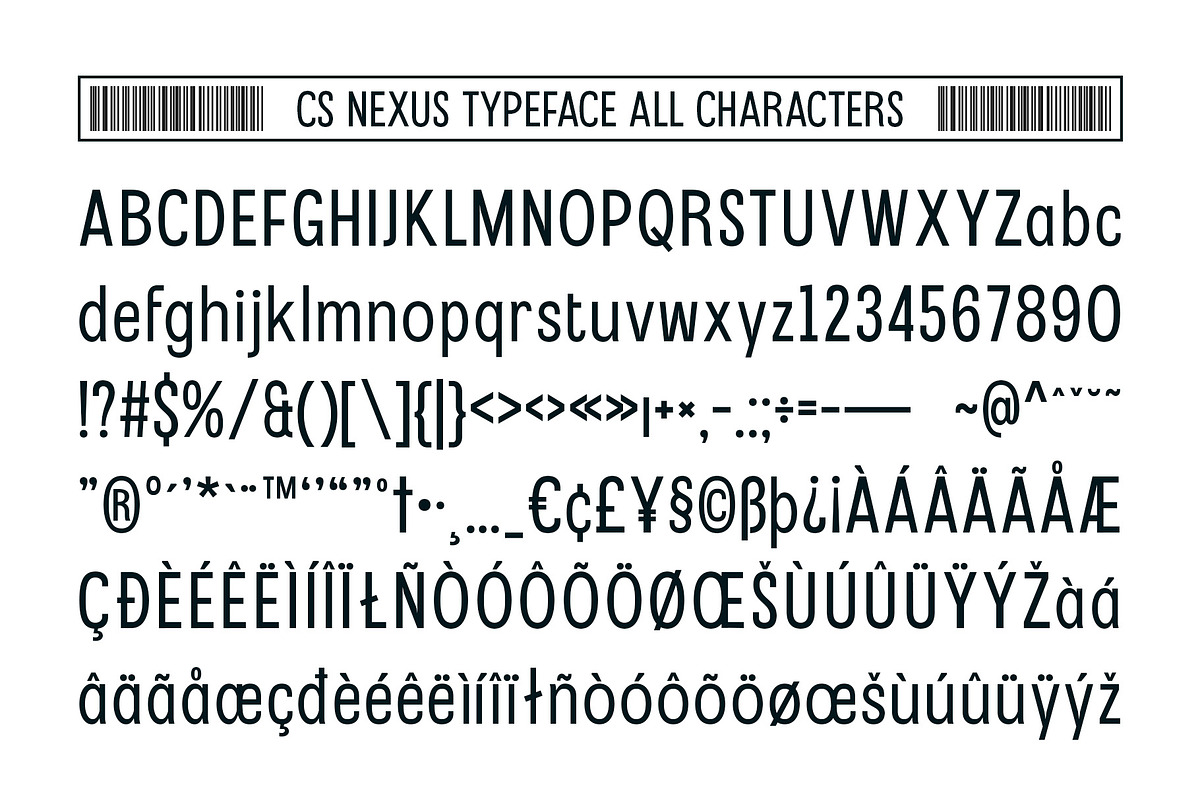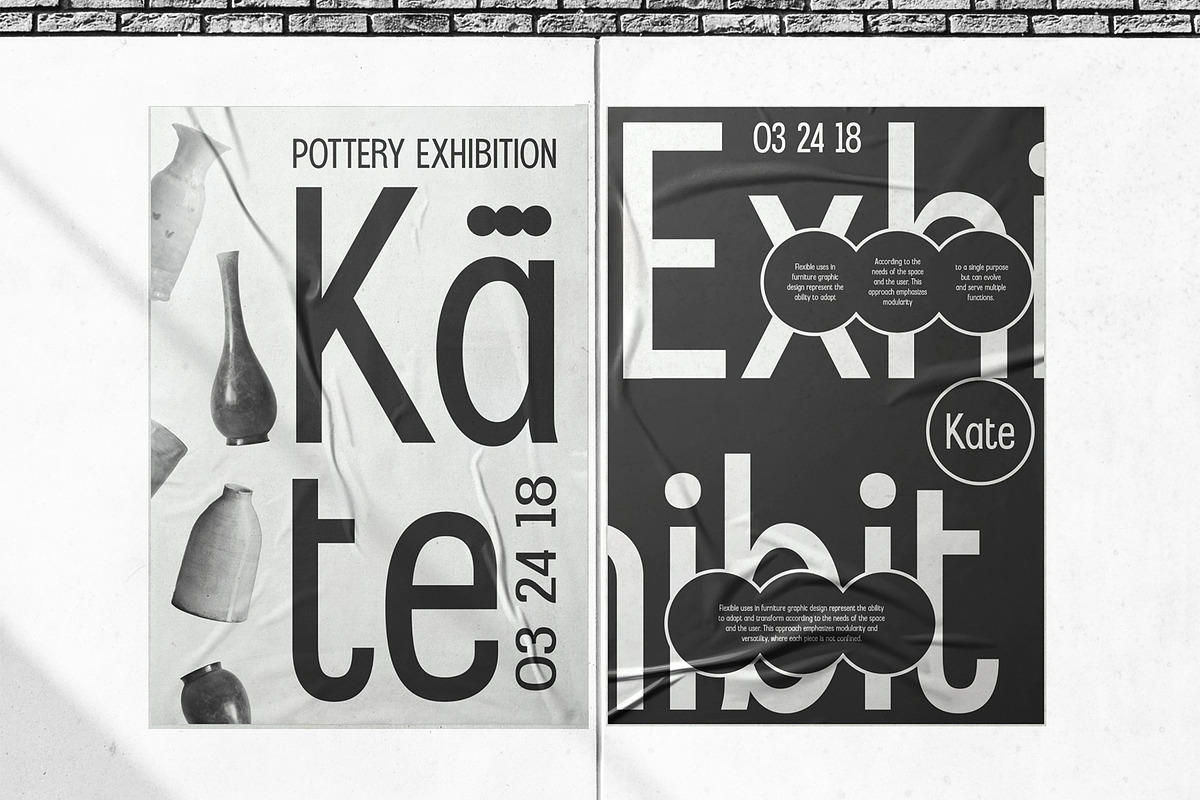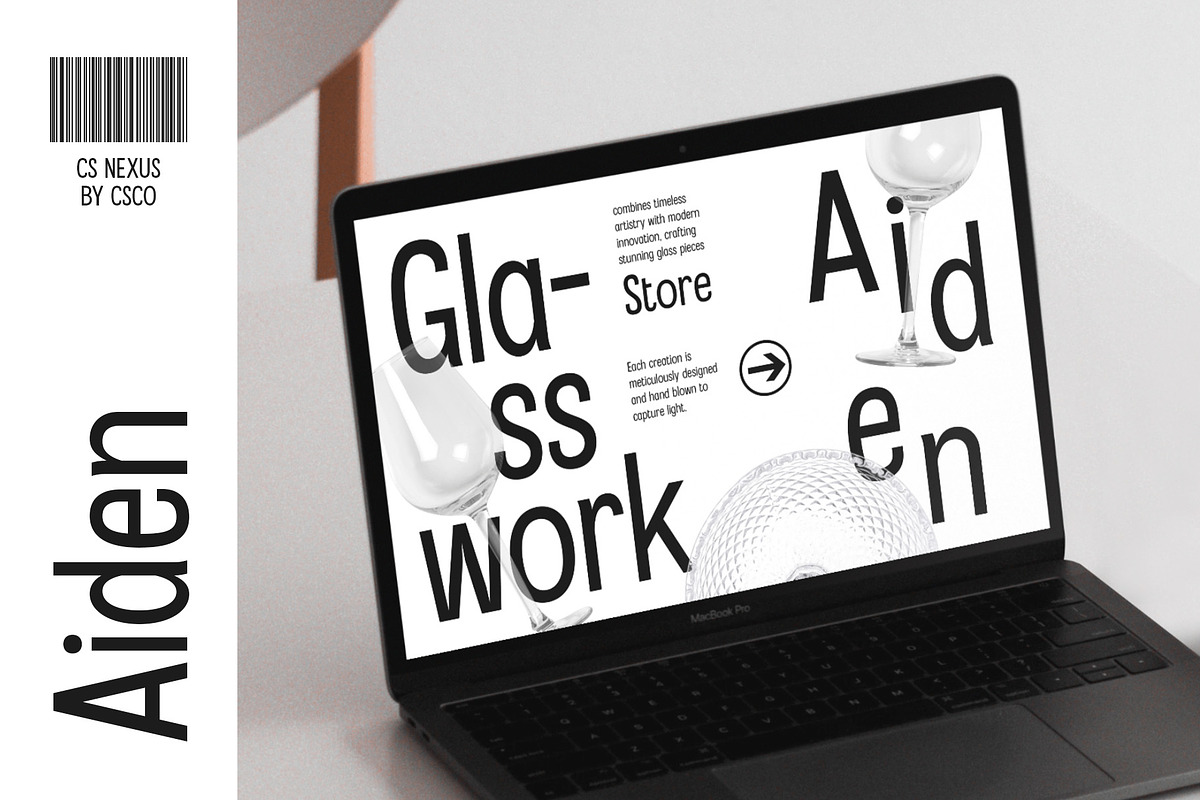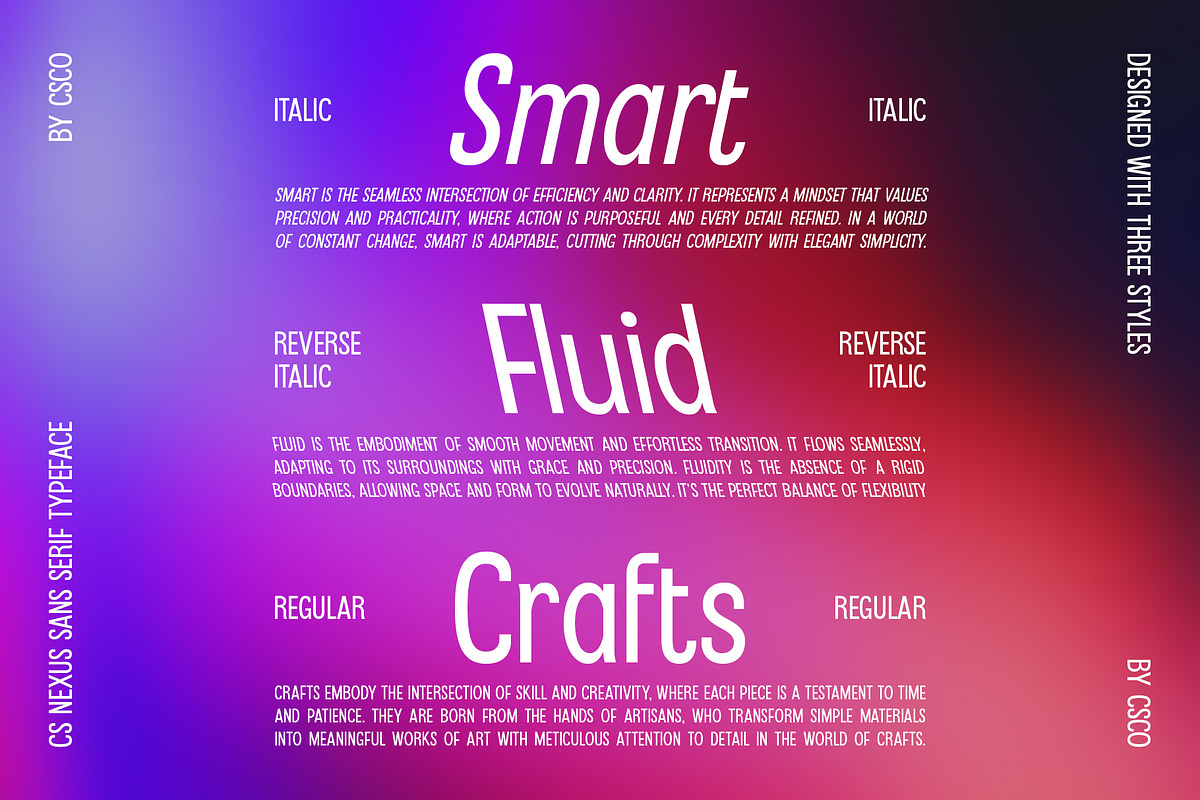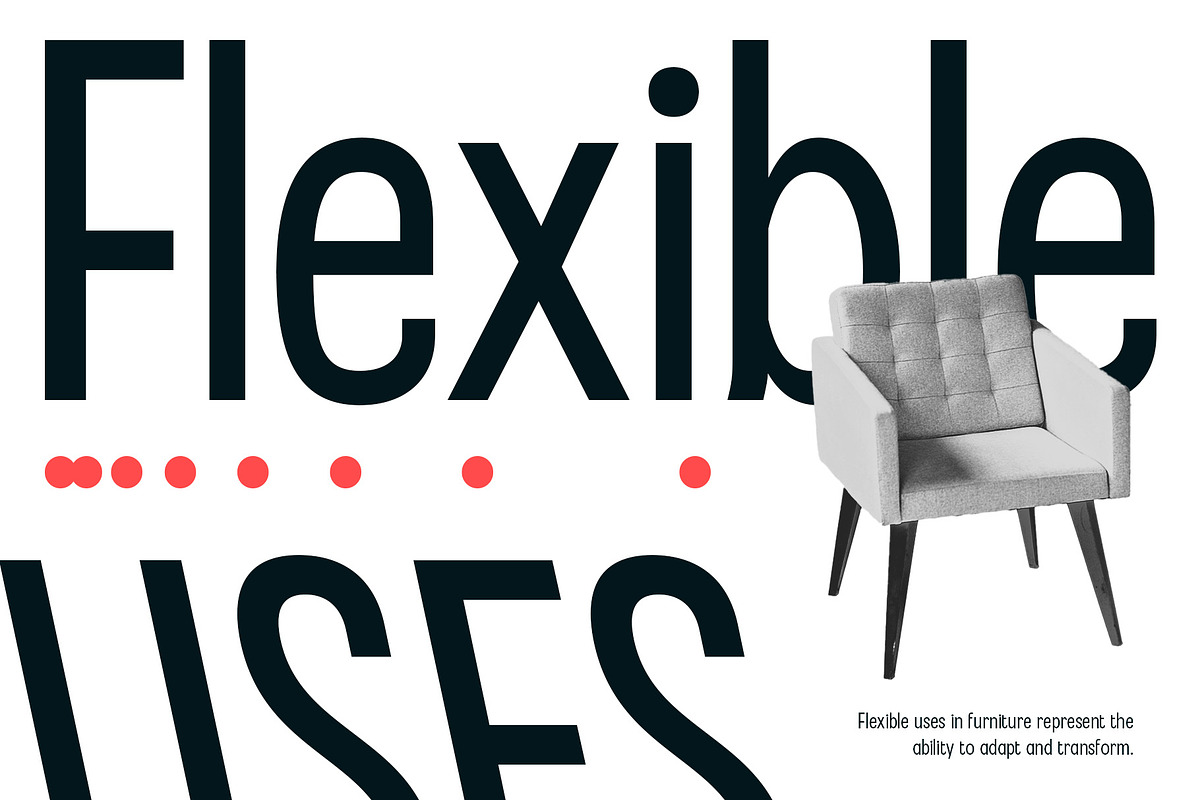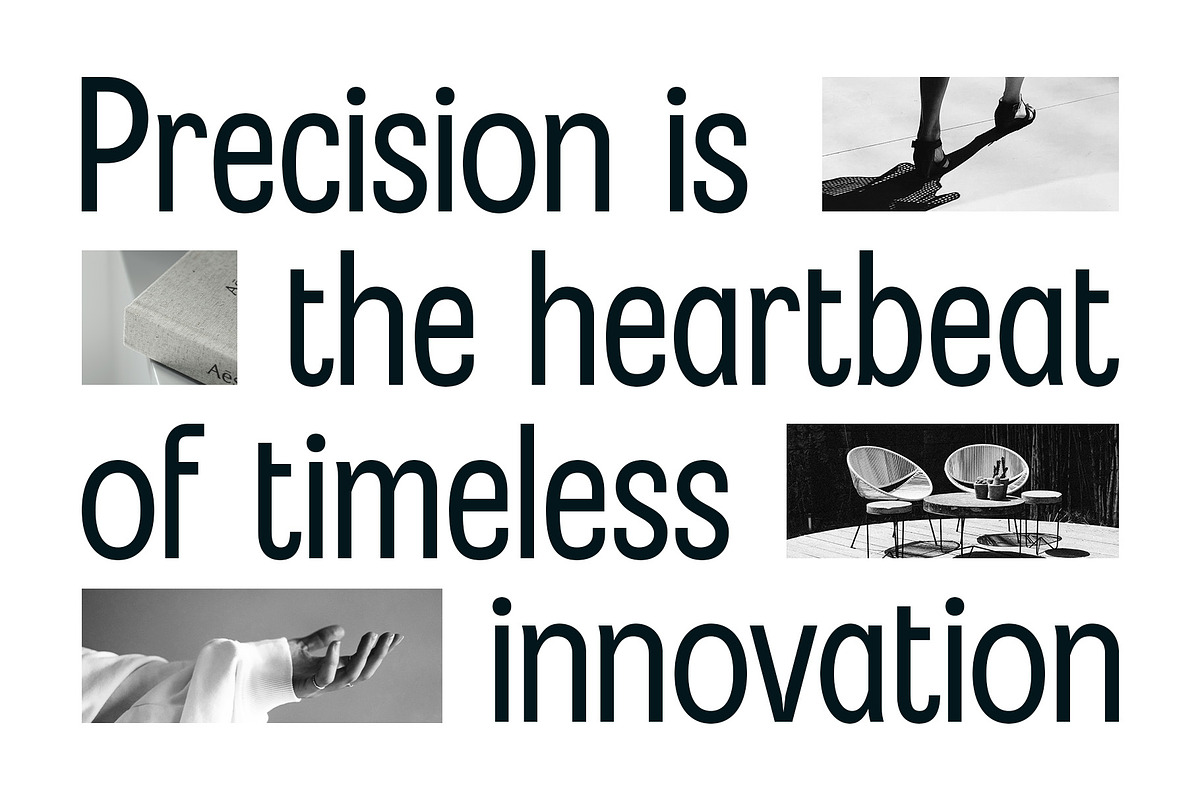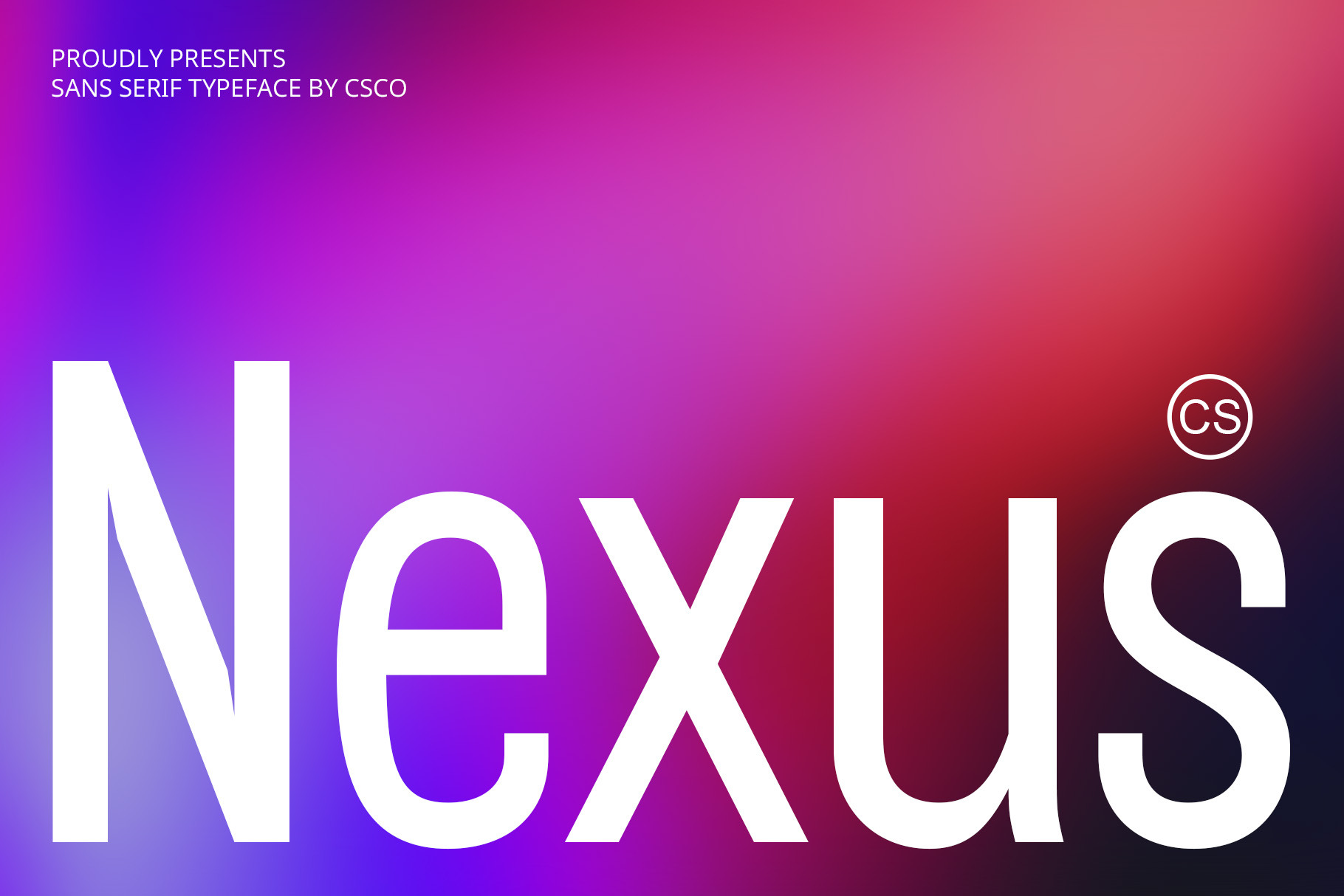
CS Nexus – Contemporary Font
CS Nexus – Contemporary Font: Sleek, Geometric, and Professional
Modern Minimalism with Precision CS Nexus is a modern sans-serif font that embodies sleekness and precision with its clean, geometric design. Featuring sharp lines and a symmetrical structure, it offers a refined, professional appearance that’s both minimalist and impactful. Its simplicity and elegance make it an ideal choice for contemporary design projects that require clarity, efficiency, and a cutting-edge aesthetic.
Versatile and Highly Readable With a focus on legibility and structure, CS Nexus is perfectly suited for a wide range of professional design applications. Whether you’re creating branding, websites, or marketing materials, its sharp, crisp lines and clean design ensure maximum readability and a sophisticated visual presence. This font’s balanced and efficient form allows it to stand out in both digital and print mediums.
Sophisticated and Innovative Feel CS Nexus exudes a modern, trustworthy feel, making it an ideal choice for brands looking to project a professional, innovative, and contemporary image. Its timeless, geometric appeal ensures it remains relevant across various industries, while its minimalist style speaks to high-end, forward-thinking designs. Perfect for brands that want to make a lasting impression while maintaining an air of sophistication and reliability.